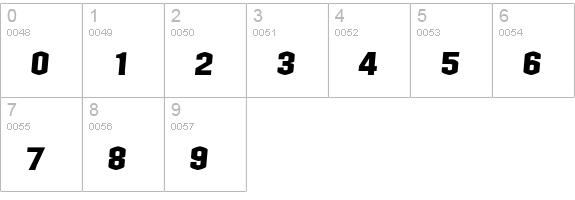
CollosItalic Font Details
Introducing CollosItalic font, a stunning typeface designed to captivate and enhance your design projects. With its elegant and sophisticated look, CollosItalic exudes a sense of luxury and refinement. The sleek curves and unique letterforms of this font make it a perfect choice for branding, logo design, and editorial projects. What sets CollosItalic apart is not only its exceptional aesthetic appeal but also its accessibility. This font is available for free download at FontsMarket.com, allowing you to easily incorporate it into your creative endeavors without any cost. Whether you're looking to add a touch of elegance to your digital designs or elevate your print materials, CollosItalic is a versatile and stylish choice that is sure to impress. Don't miss out on the opportunity to enhance your projects with the timeless beauty of CollosItalic font. Download it for free today at FontsMarket.com and unleash your creativity with this exquisite typeface.